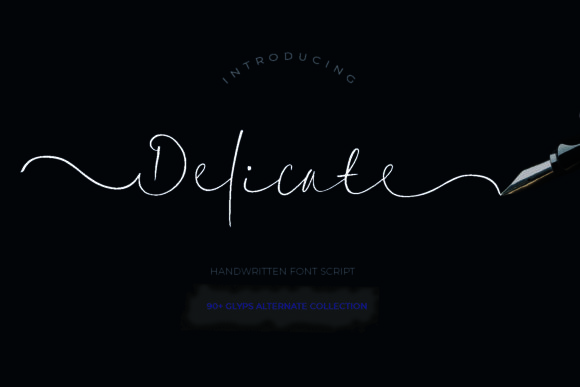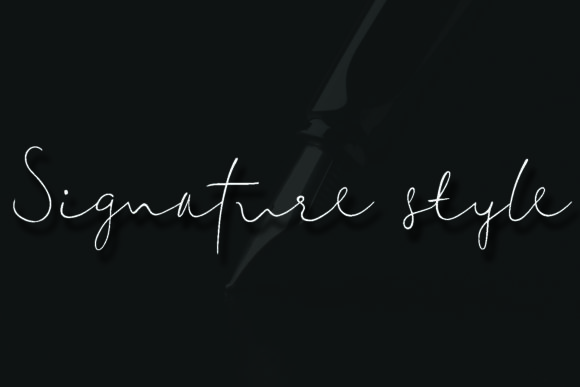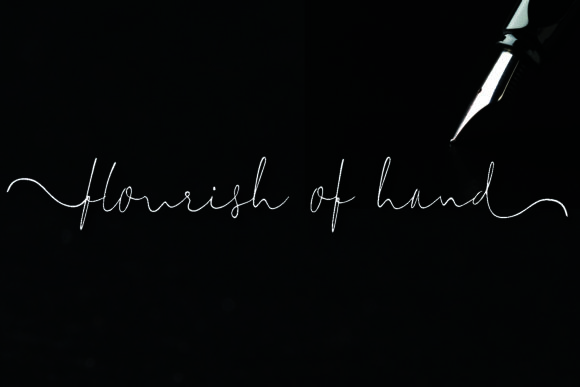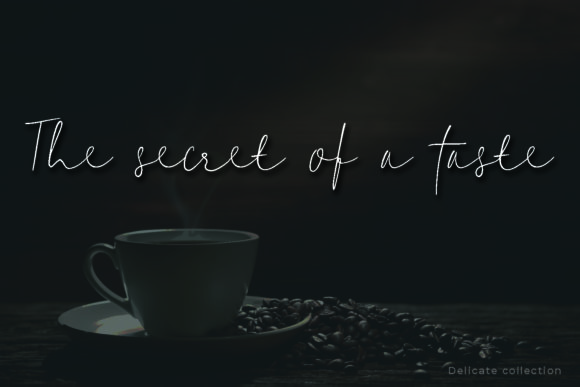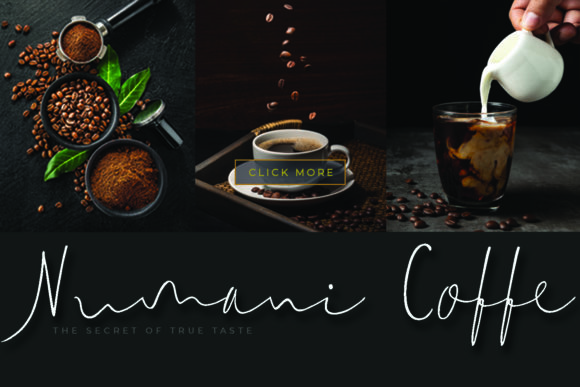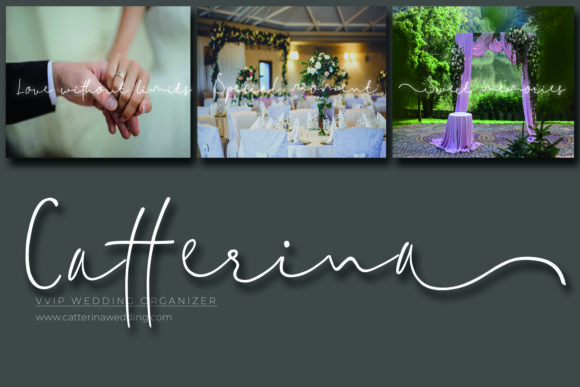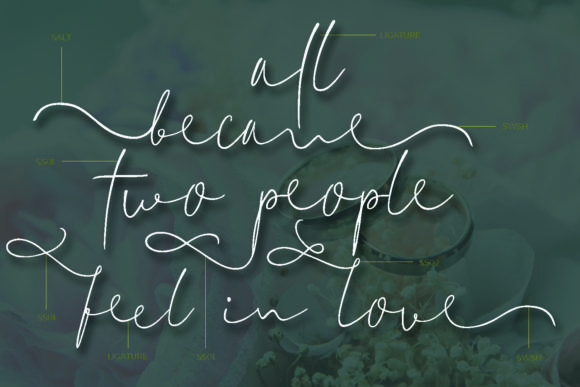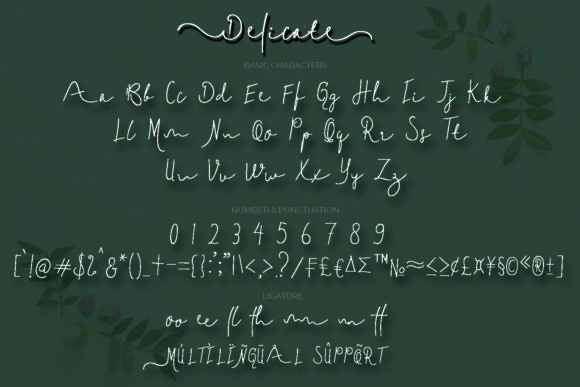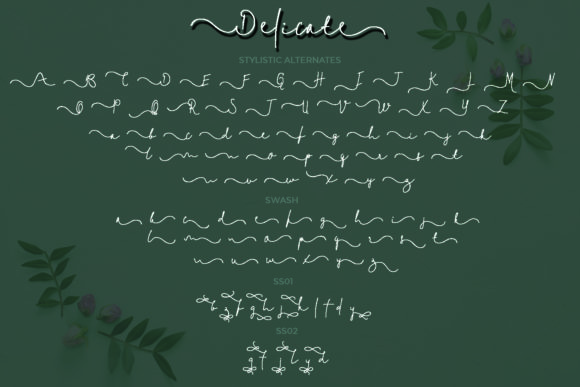
Delicate Font
About Delicate Font
Delicate is a beautiful script font. It maintains its classy calligraphic influences while feeling contemporary and fresh. This versatility will appeal to a wide range of crafty ideas, from letterheads and titles, to stationery.